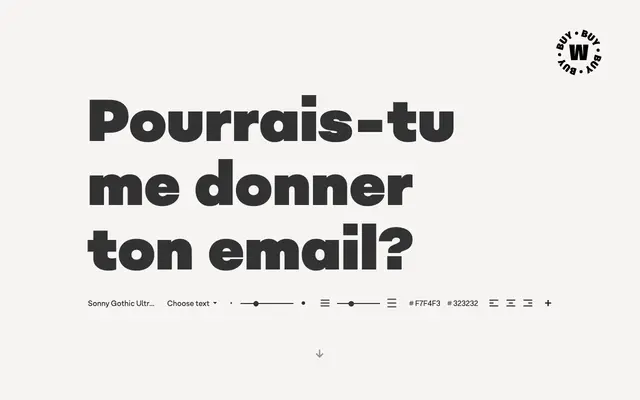
Sonny Gothic
W Type Foundry · Salvador Rodriguez
A geometric sans in 36 styles across two subfamilies, drawing on the 1970s rational geometry and cap ligatures associated with Herb Lubalin.
Designed by Salvador Rodriguez at W Type Foundry, Sonny Gothic pairs modern cap proportions with the traditional cap ligatures characteristic of 1970s geometric lettering. The family runs from Thin to Ultrablack across upright and italic cuts, with a full Sonny Condensed subfamily extending the range to tighter settings. Each style includes alternate characters, ligatures, fractions, arrows and extended language support via OpenType features.
Described explicitly as rational-geometric, inspired by the geometric style of the 1970s and Herb Lubalin's work; pure geometric construction with modern cap proportions and traditional 70s cap ligatures.